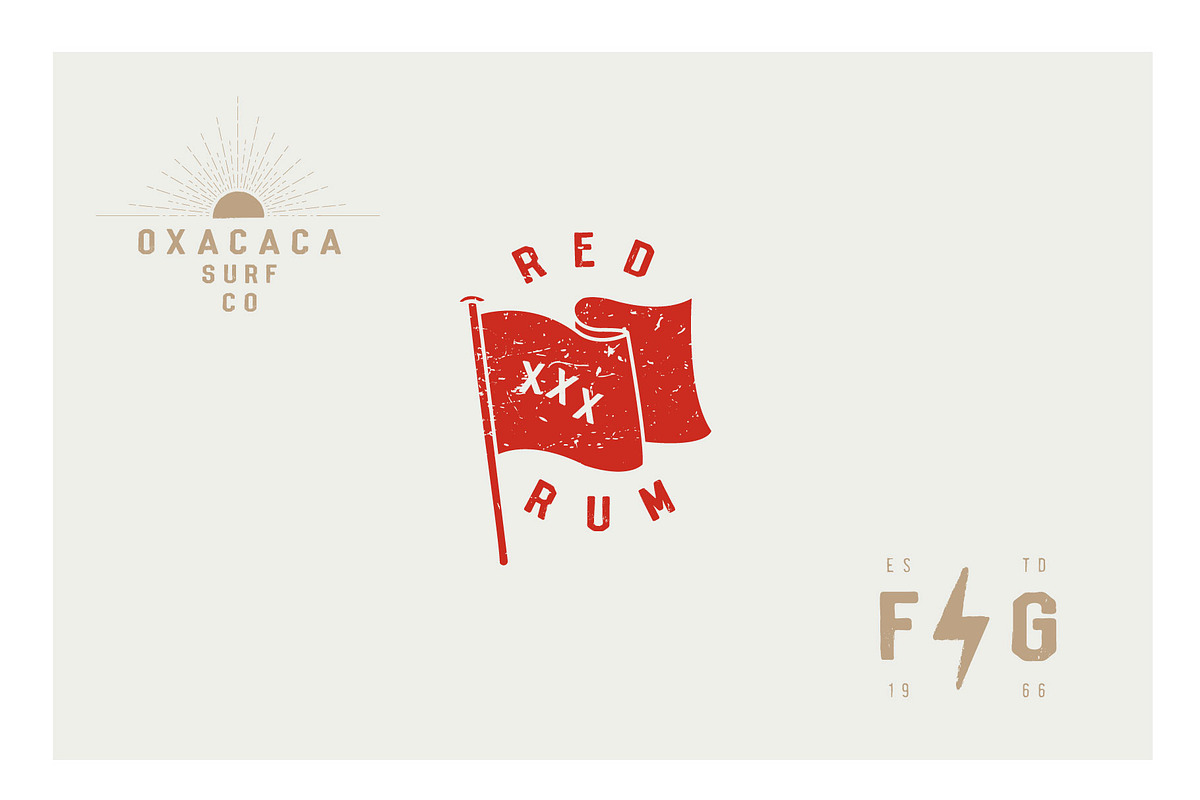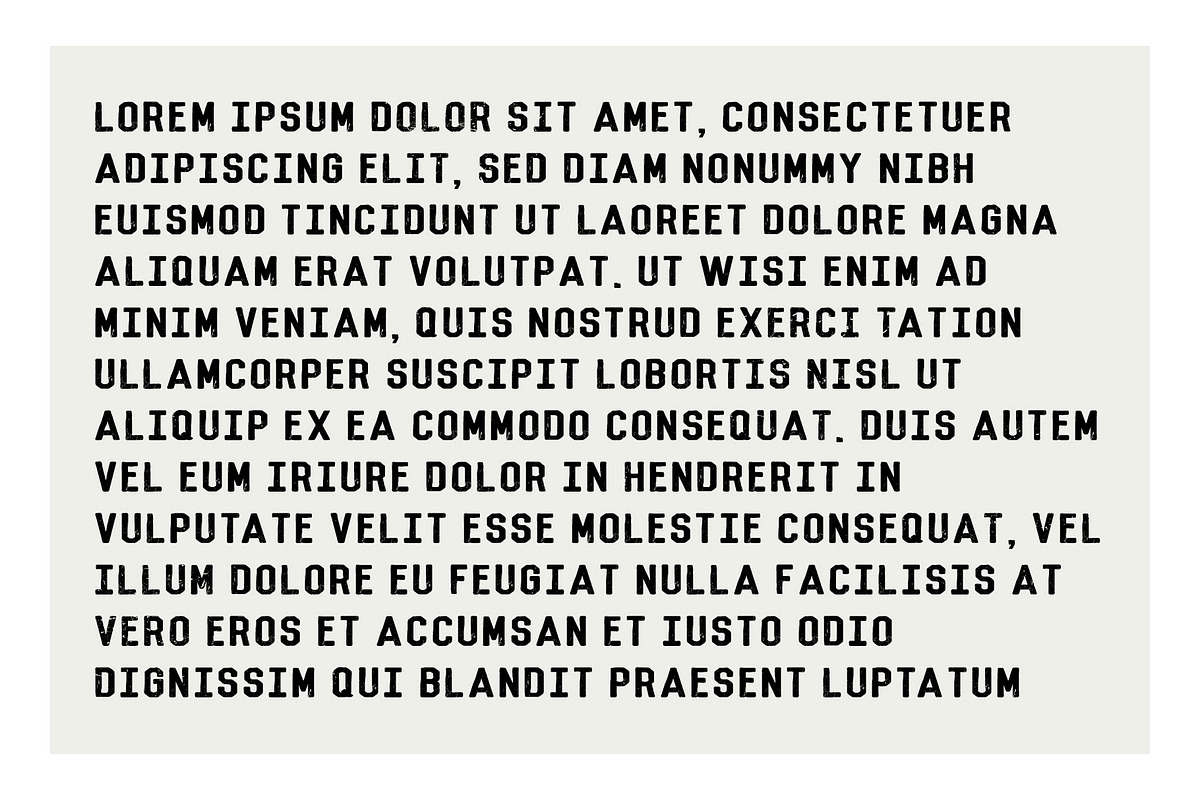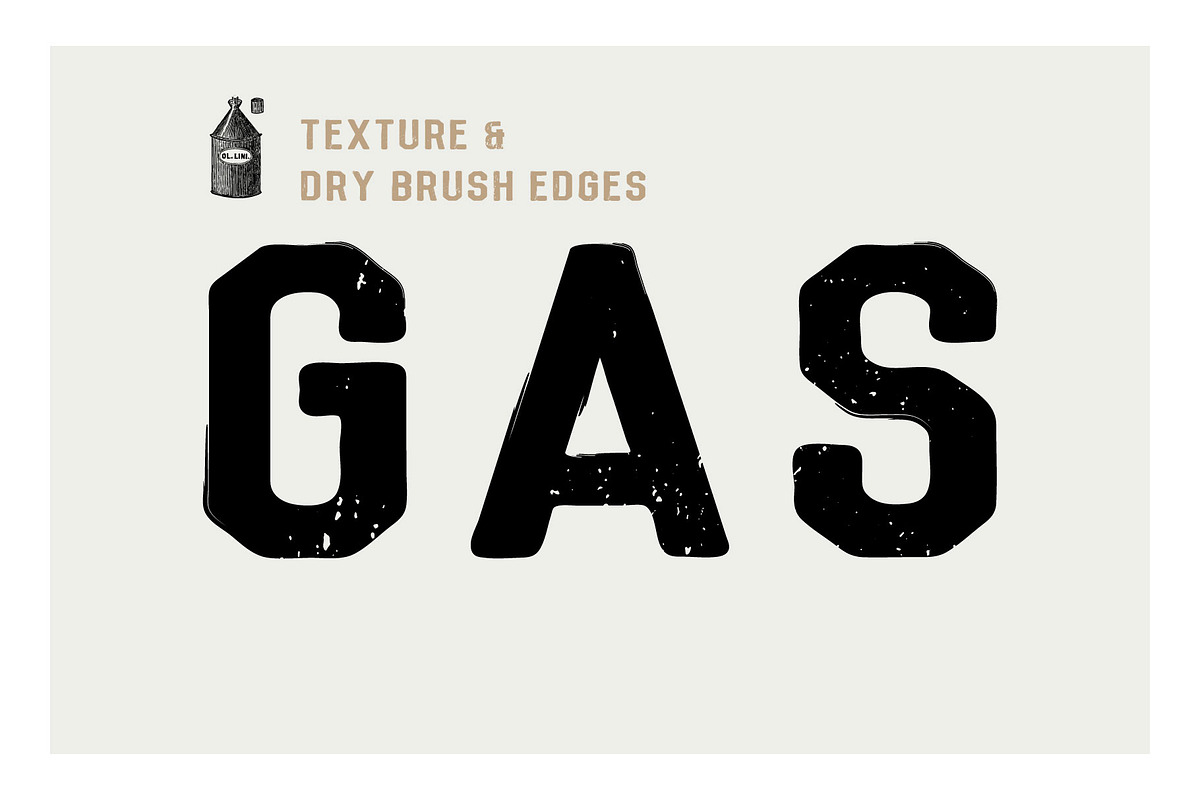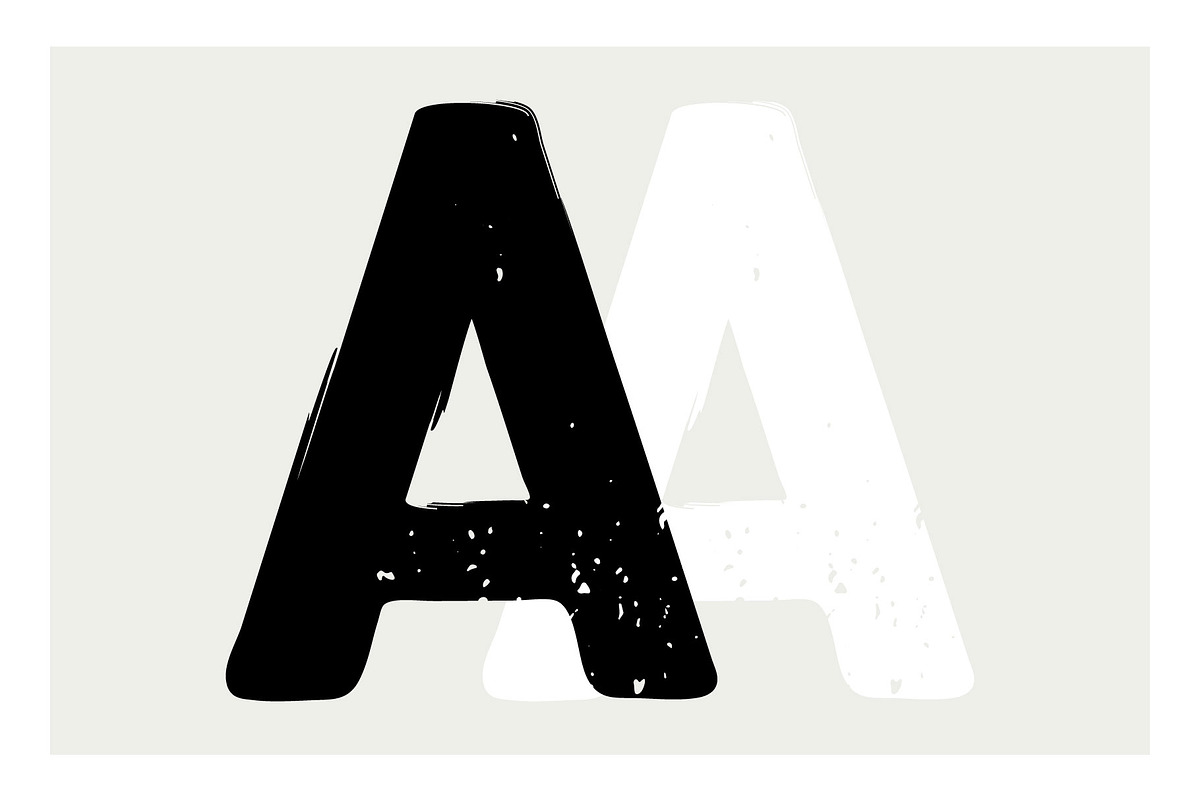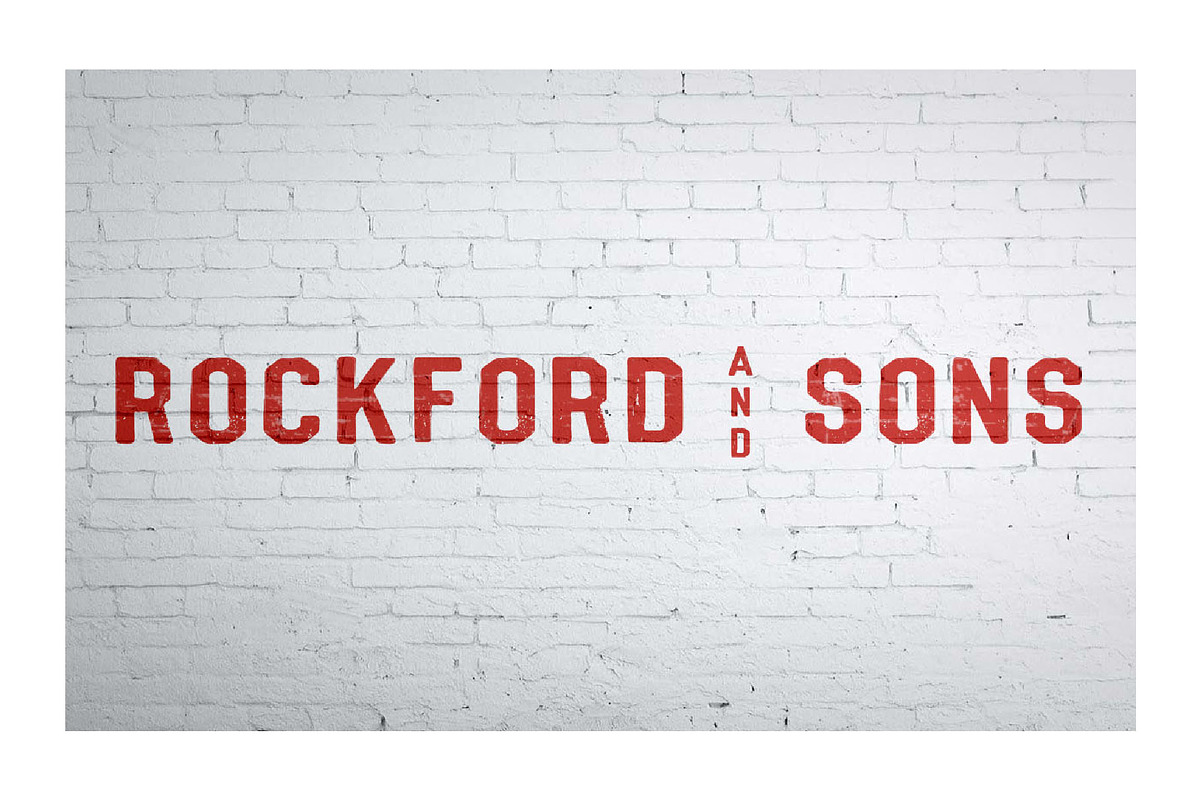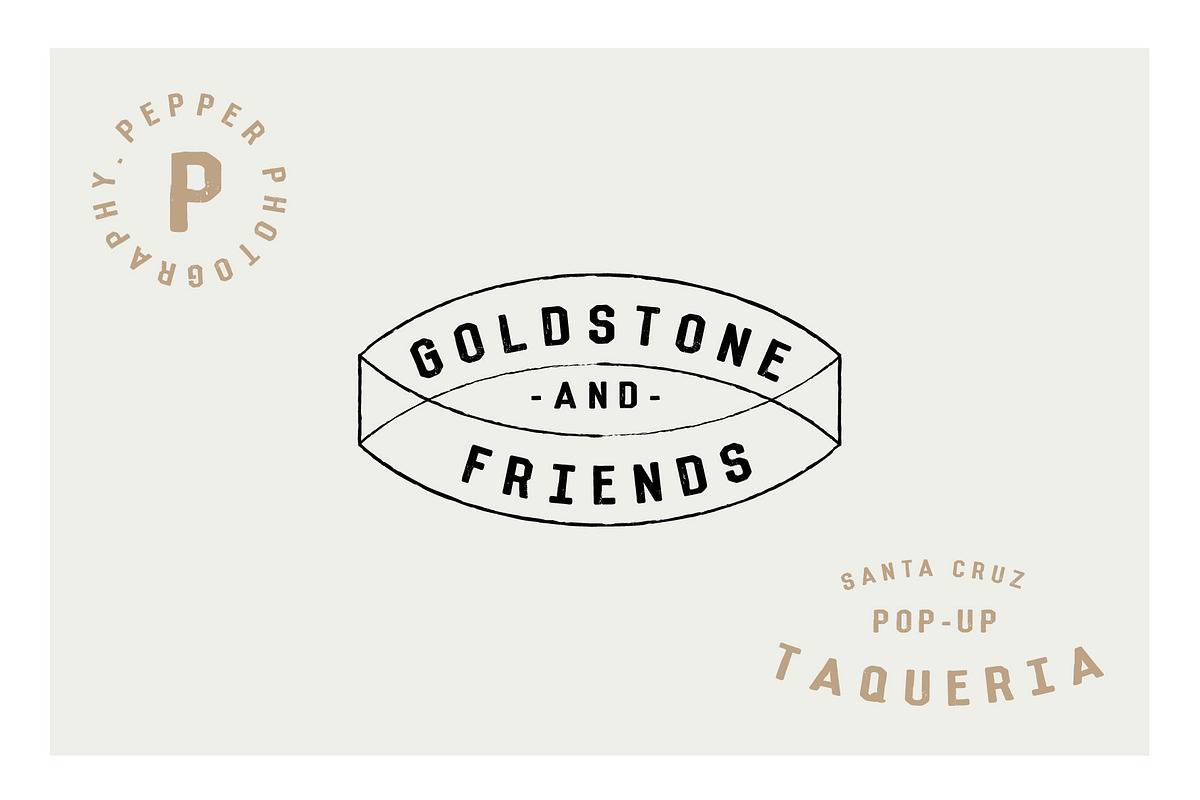
Merchant - Vintage Dry Brush Font
A bit old school and a bit tough, this otf. font has just the right amount of texture with a subtle dry brush edge. Based off an old photo of a baseball scoreboard, circa 1945. Great for vintage logos or that old sign-writer effect.
Merchant - Vintage Dry Brush Font by Tropical Type fits naturally into Branding, posters, packaging, typography.